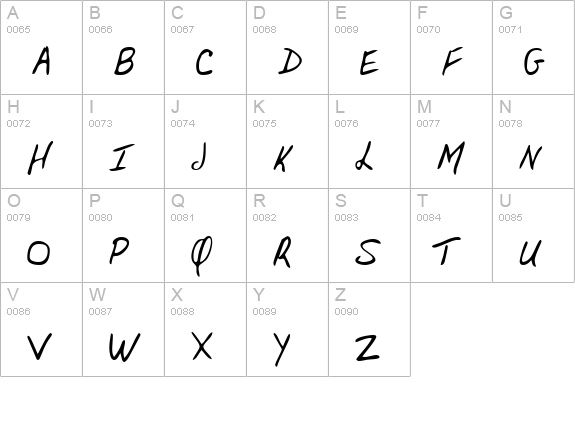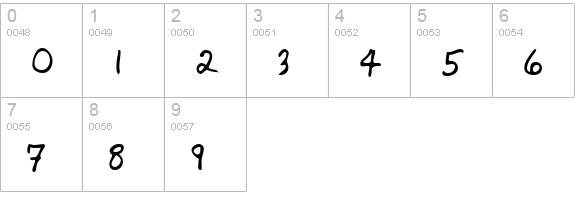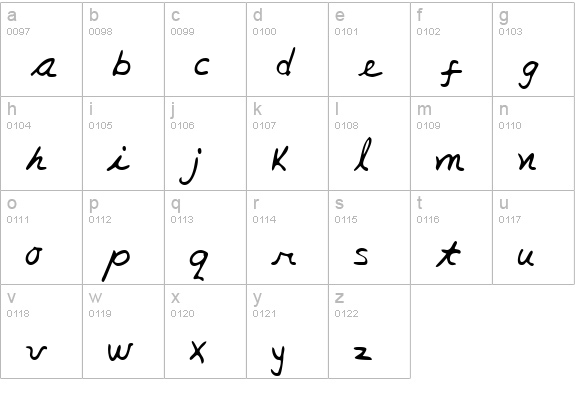
JacksHand Regular is the standard, neutral variant in the JacksHand typeface family \xE2\x80\x94 well suited to general body text, paragraphs, and standard typographic work.
JacksHand Regular is a whimsical and playful font that captures the essence of handwritten goodness. With its carefully crafted letterforms and charming irregularities, this typeface brings a unique and personal touch to any design project. The fluid strokes and organic curves give JacksHand Regular a lively and natural appearance, making it perfect for adding a touch of warmth and friendliness to your creations. This font is freely available to download at FontsMarket.com. You can enjoy the creative freedom that JacksHand Regular offers without any cost. Whether you're working on a personal project or a professional design, this font will definitely become your go-to choice. With its versatility and effortless charm, JacksHand Regular is suitable for a wide range of applications such as branding, packaging, invitations, posters, and much more. JacksHand Regular is designed with meticulous attention to detail, ensuring legibility and readability even at smaller sizes. Its generous x-height and carefully balanced proportions make it easy to read both in print and on digital screens. Whether you're using it for headlines, body text, or any other typographic element, JacksHand Regular will always deliver a visually appealing result. Featuring a full set of uppercase and lowercase letters, numerals, punctuation marks, and special characters, JacksHand Regular provides everything you need to bring your designs to life. The font's extensive character set allows for endless creative possibilities, giving you the freedom to express yourself in your own unique way. So why wait? Embrace the free-spirited and lively nature of JacksHand Regular and elevate your designs to new heights. Download this font for free at FontsMarket.com and let your creativity flow effortlessly.